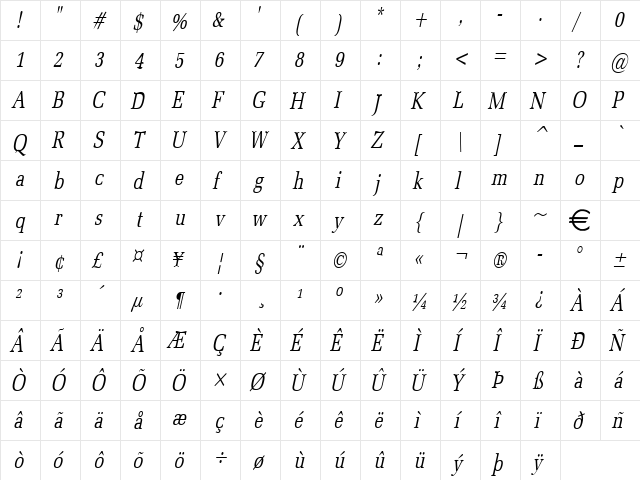
BidRomanThin Italic
Design Context for BidRomanThin Typeface
BidRomanThin offers clean, dependable letterforms without strong stylistic allegiance, making it a practical choice for designers who need flexibility. The slanted form adds forward momentum and visual energy. Its slender proportions lend an understated elegance to any composition.
Pro Tip: Use BidRomanThin for emphasis, pull quotes, and subheadings where its slanted energy can add rhythm to the layout.